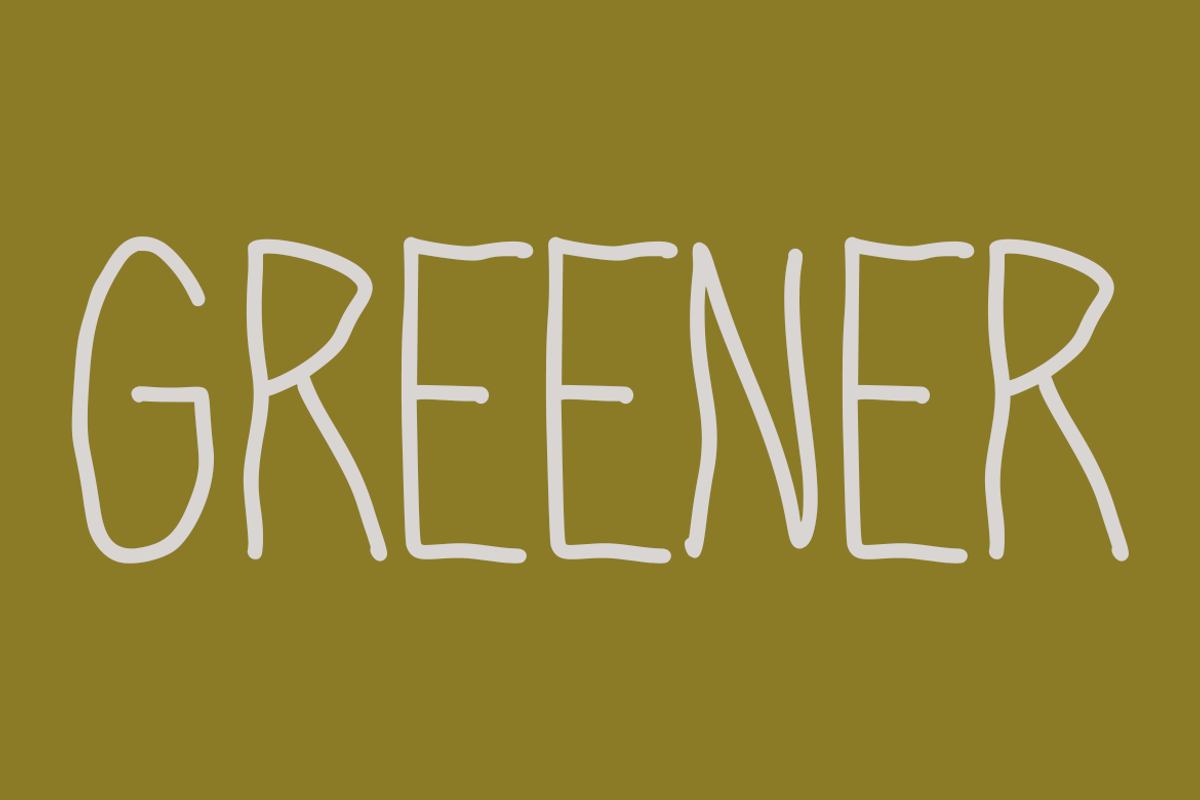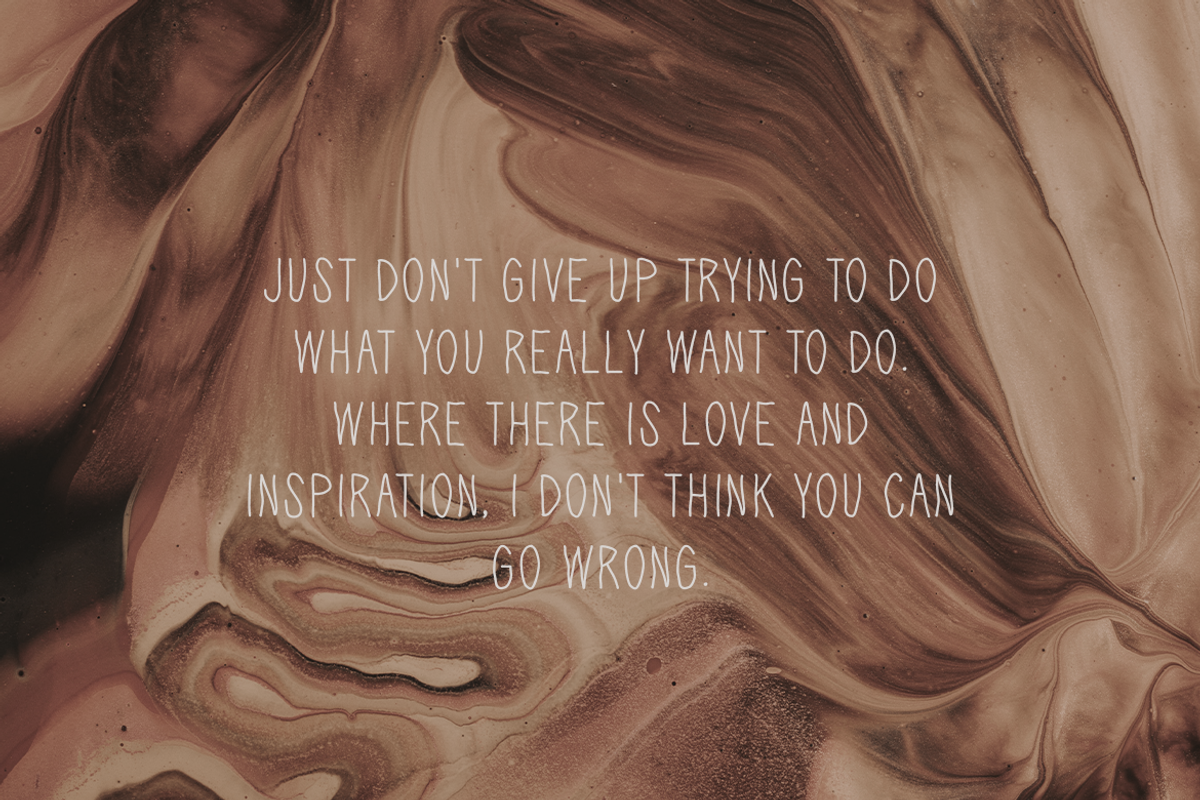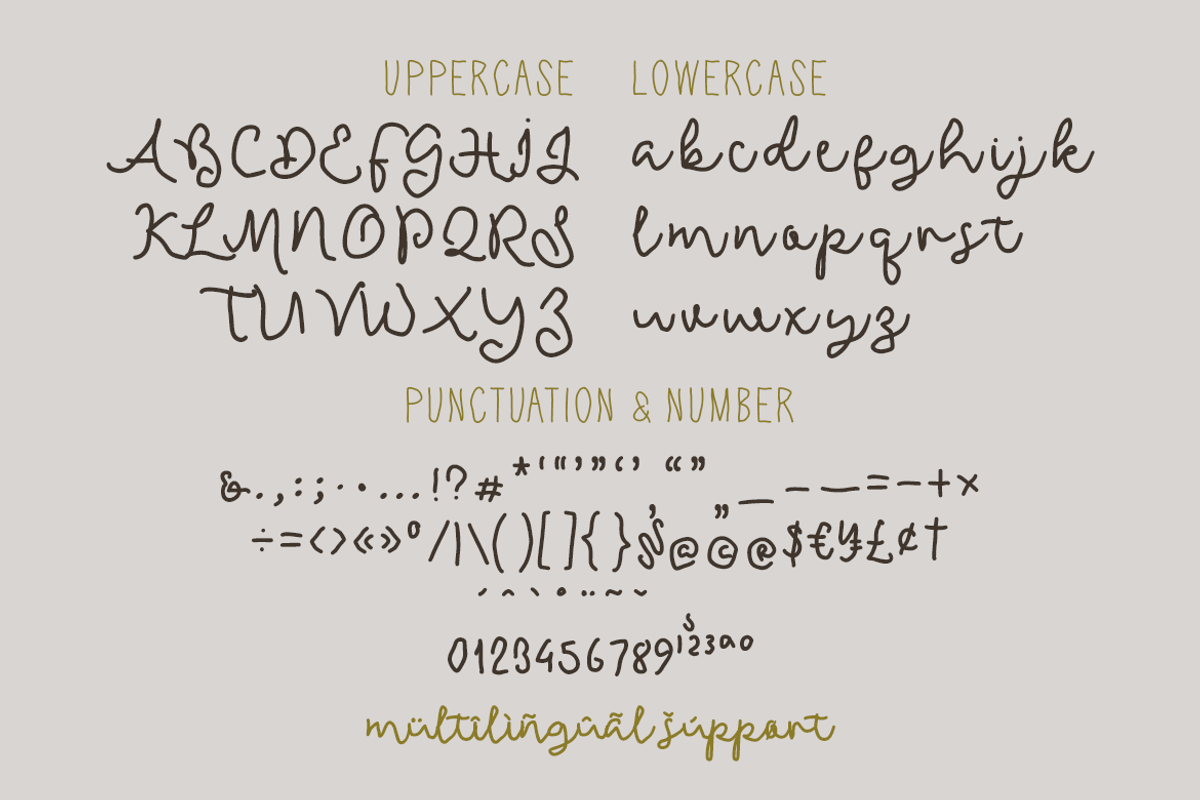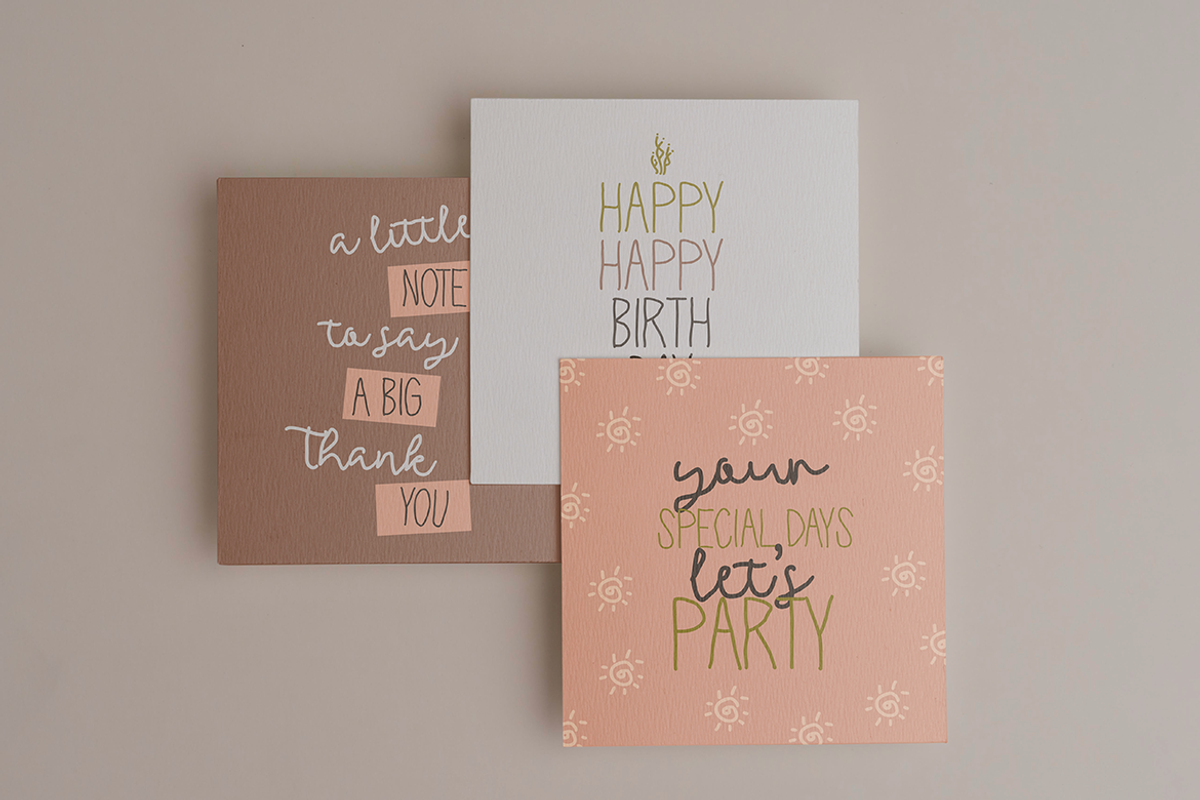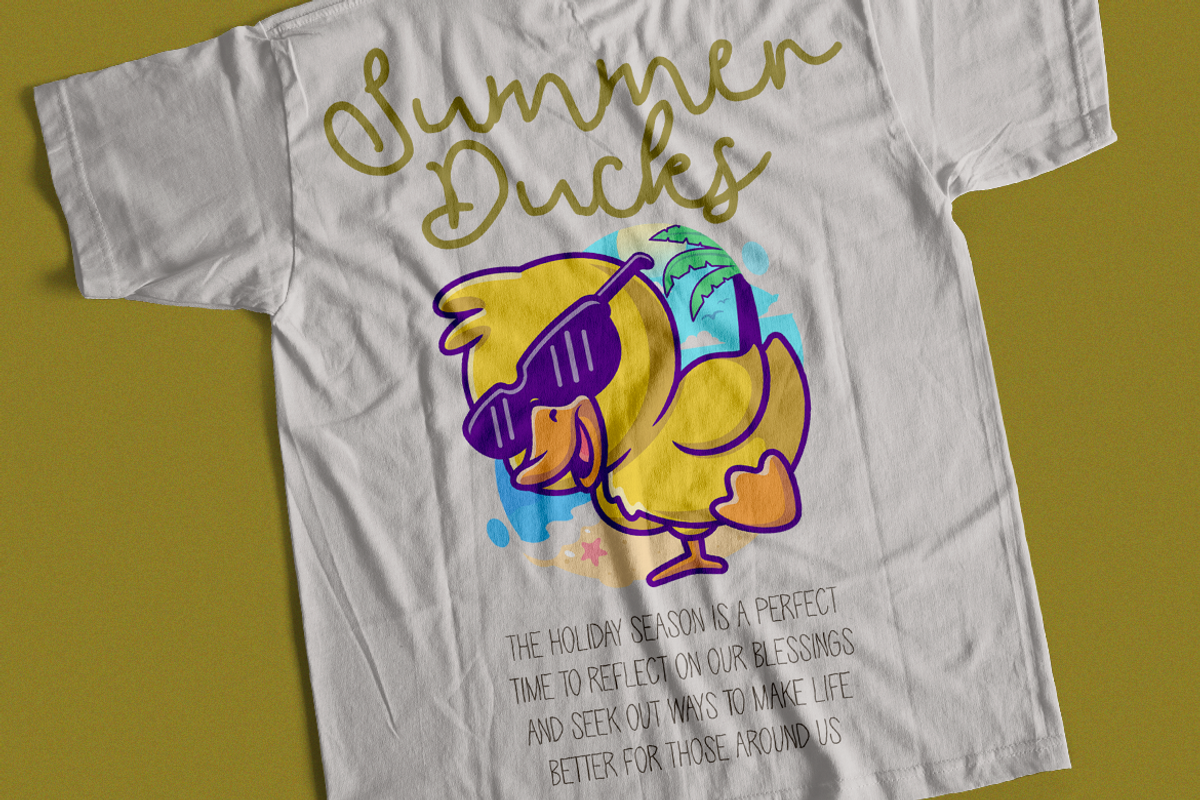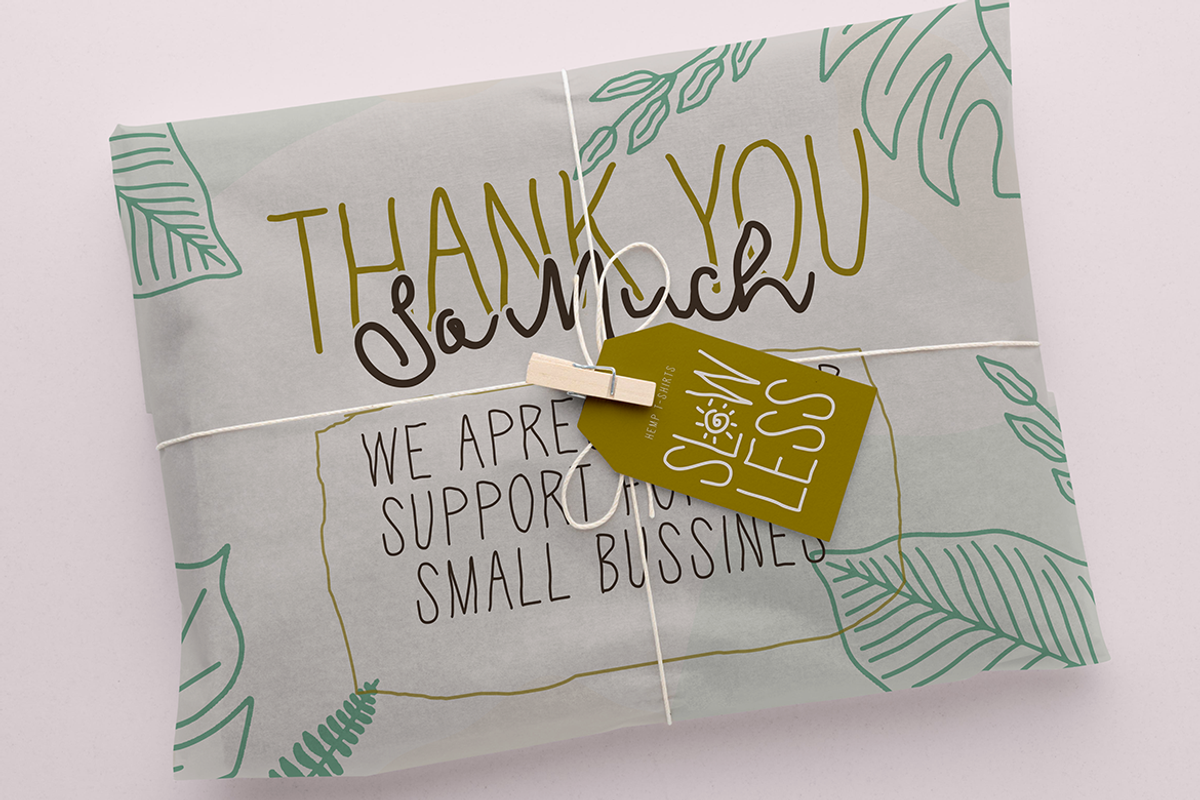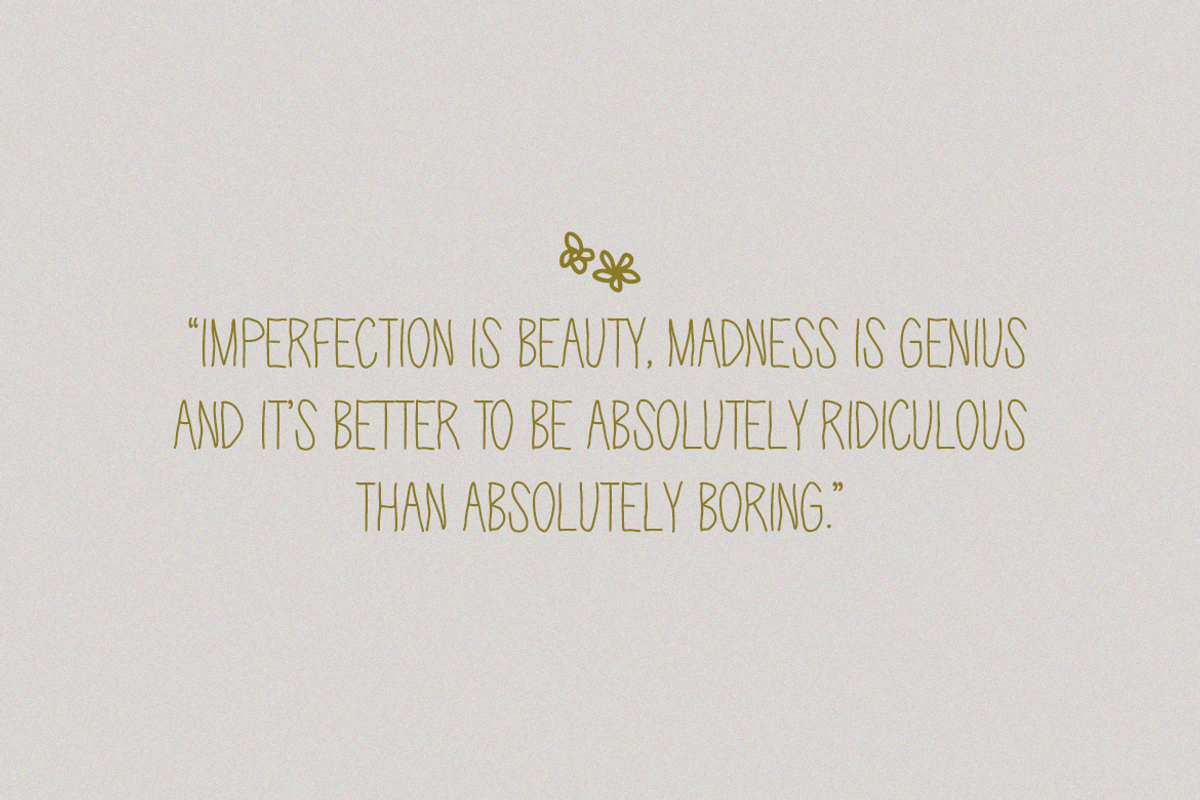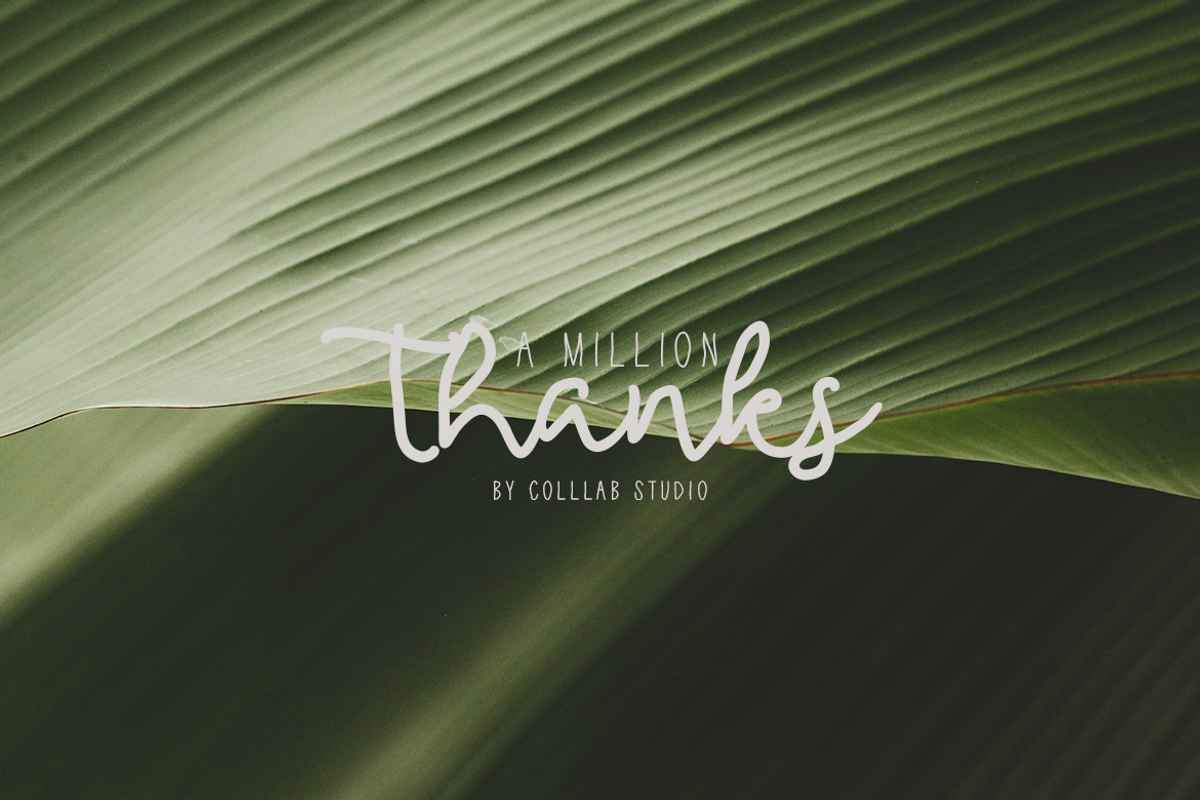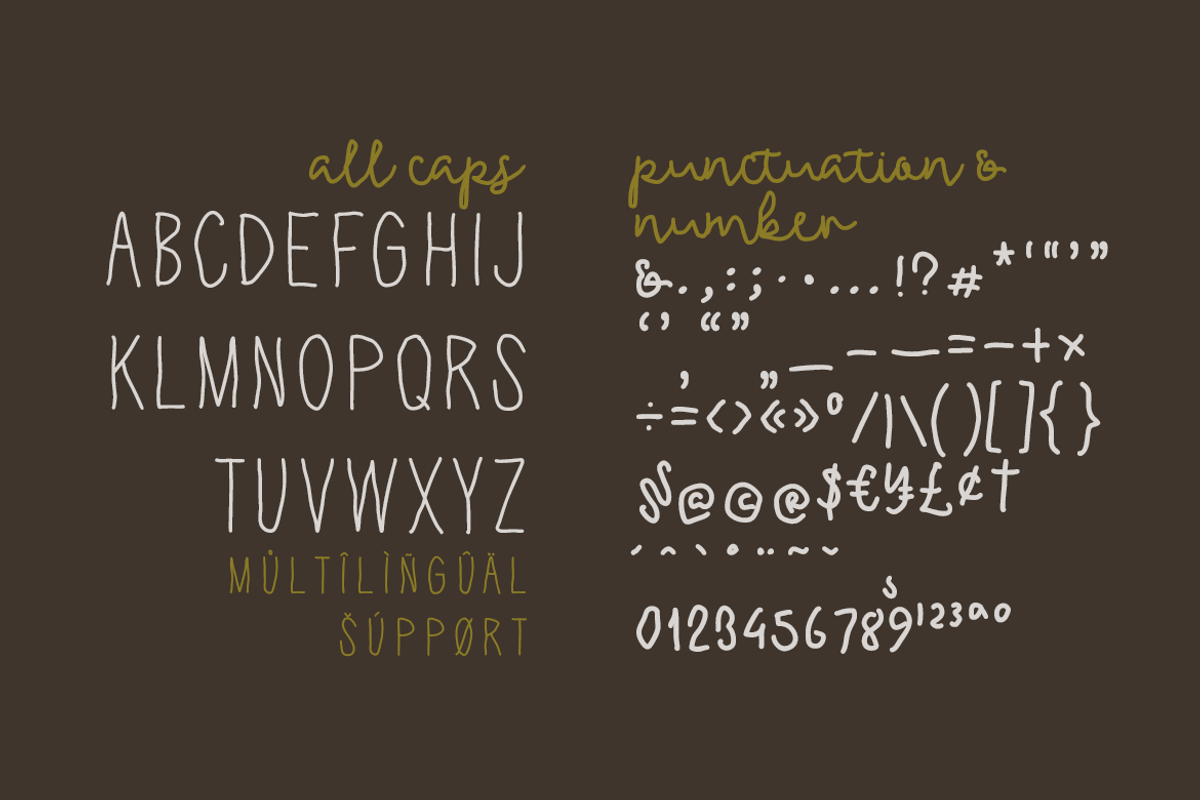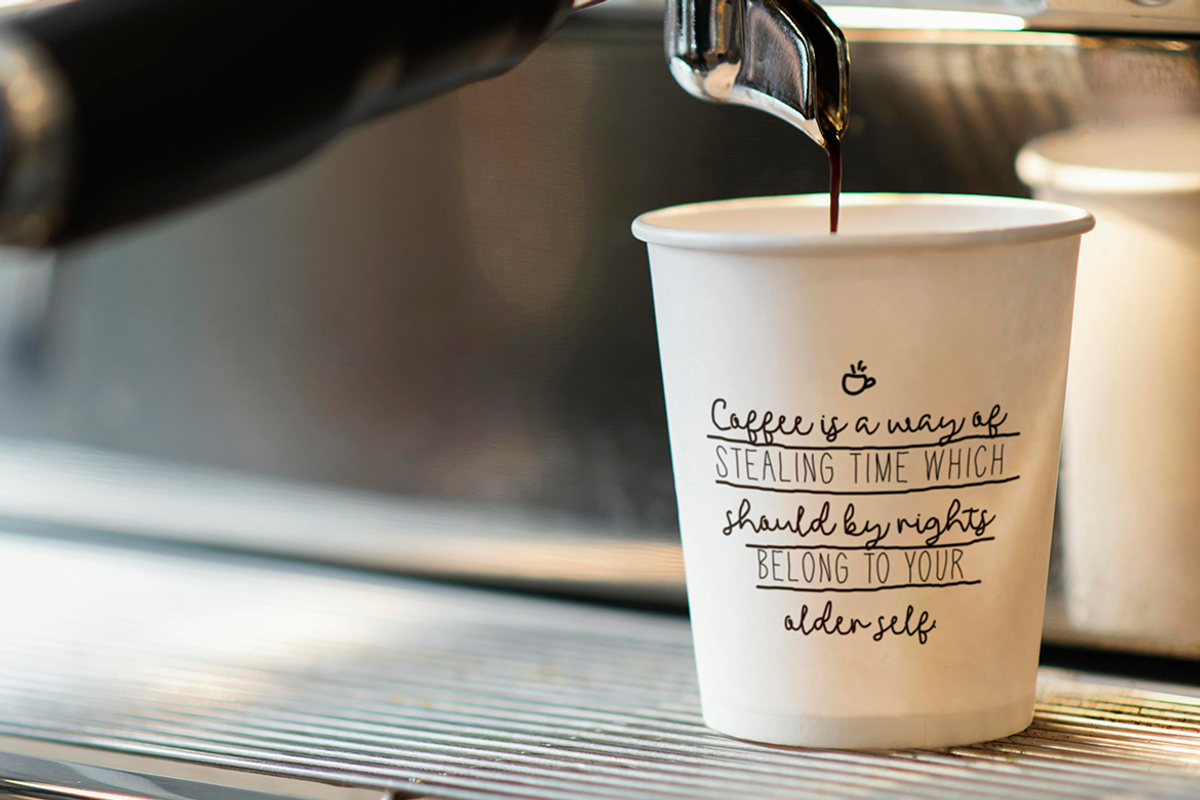
Antique Garden | A Unique Font Duo
Finding a beautifully hand drawn script on fonts to complete your design can take a long time. We hear you... and we’re here to help you out!
Antique Garden is the first brush font duo that combines sans and script fonts, with a vintage pencil look, into one single product. Each font has 100% of character to give your designs that charming handmade look.